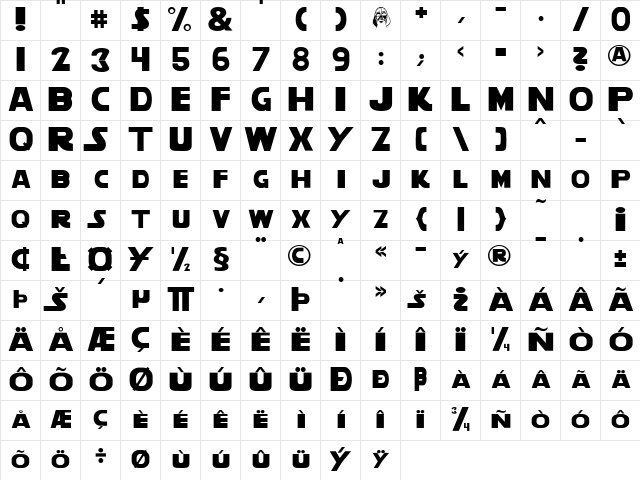
StarVader Regular
Design Context for StarVader Typeface
StarVader is a composed and adaptable typeface that performs quietly and consistently across a wide range of design contexts.